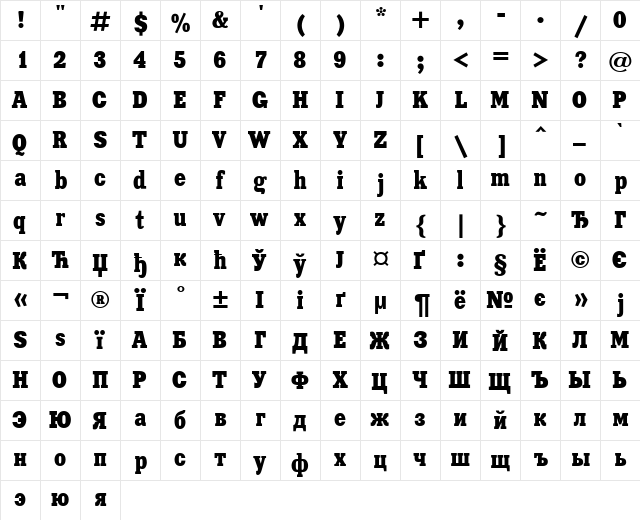
Xenia Condensed Cyrillic
Design Context for Xenia Condensed Typeface
Xenia Condensed is a composed and adaptable typeface that performs quietly and consistently across a wide range of design contexts. Its narrow stance lets it pack a punch even in space-constrained designs.